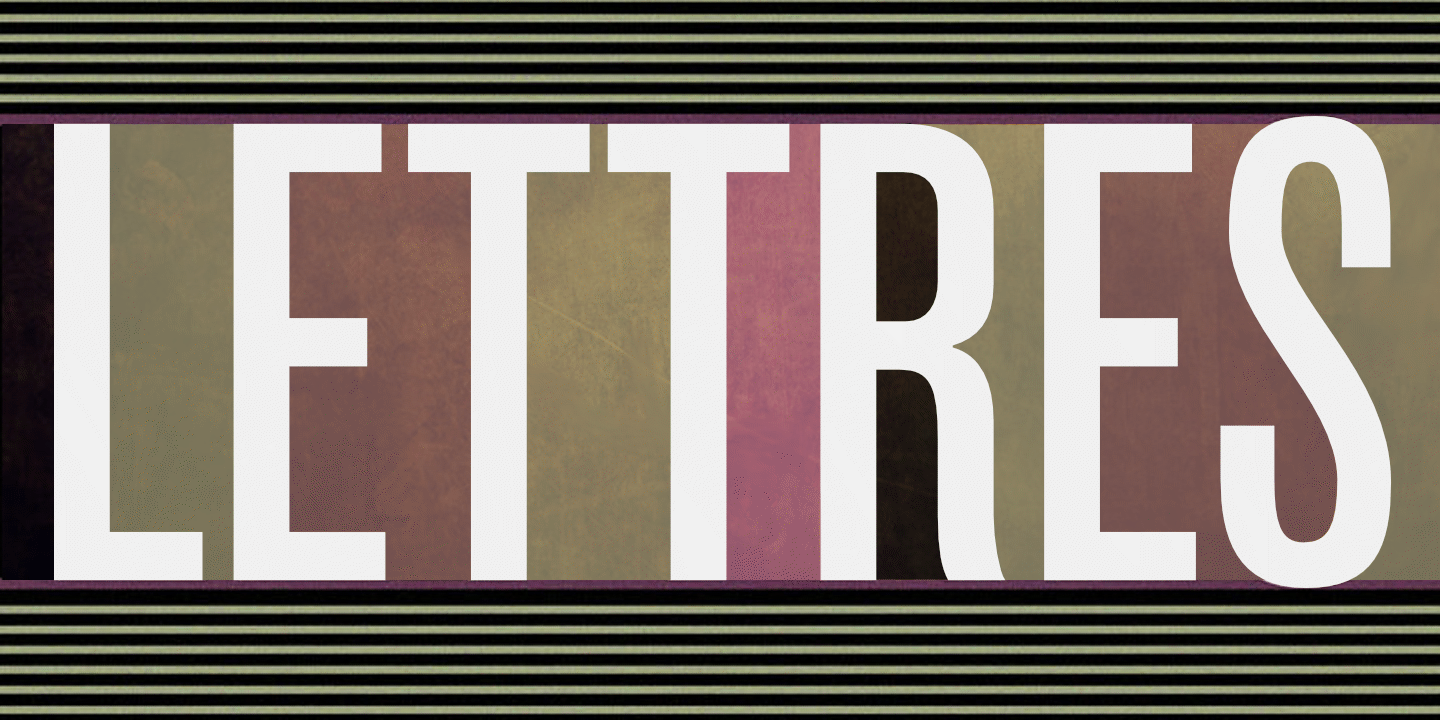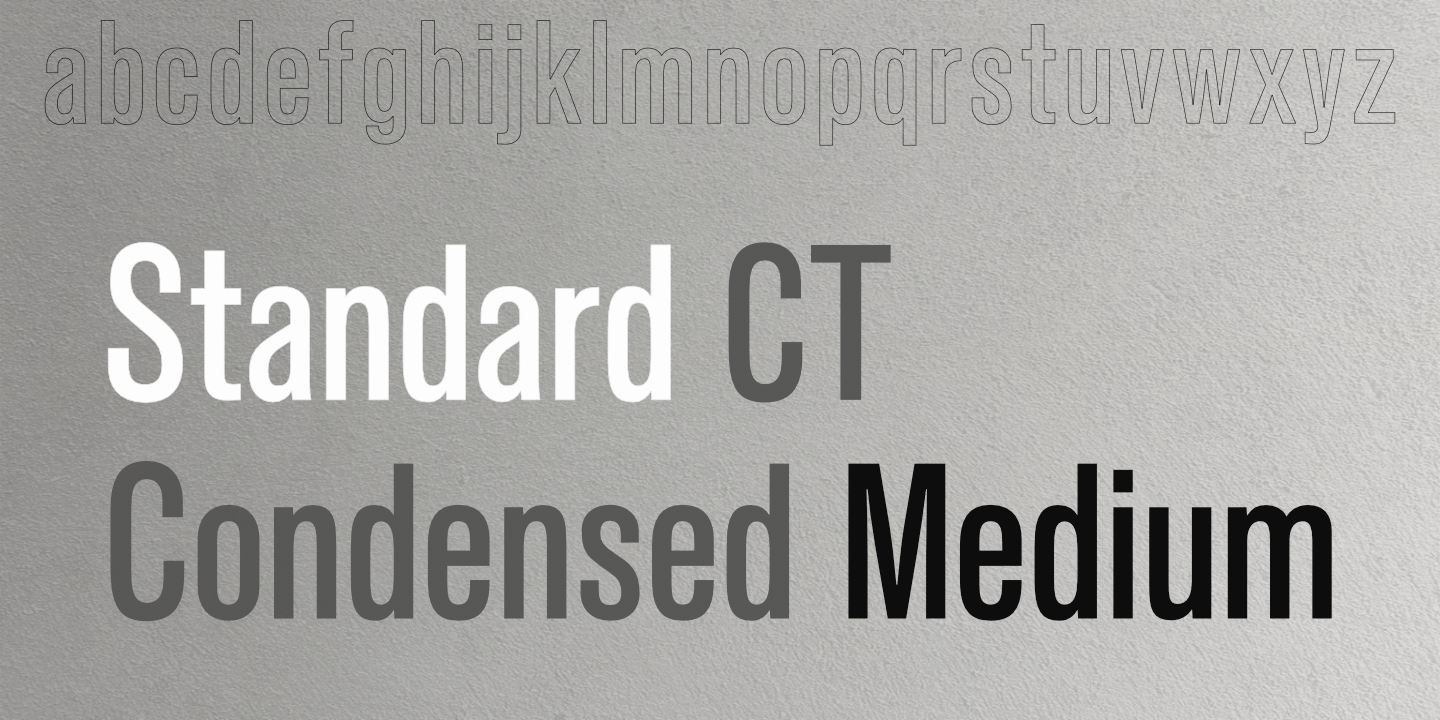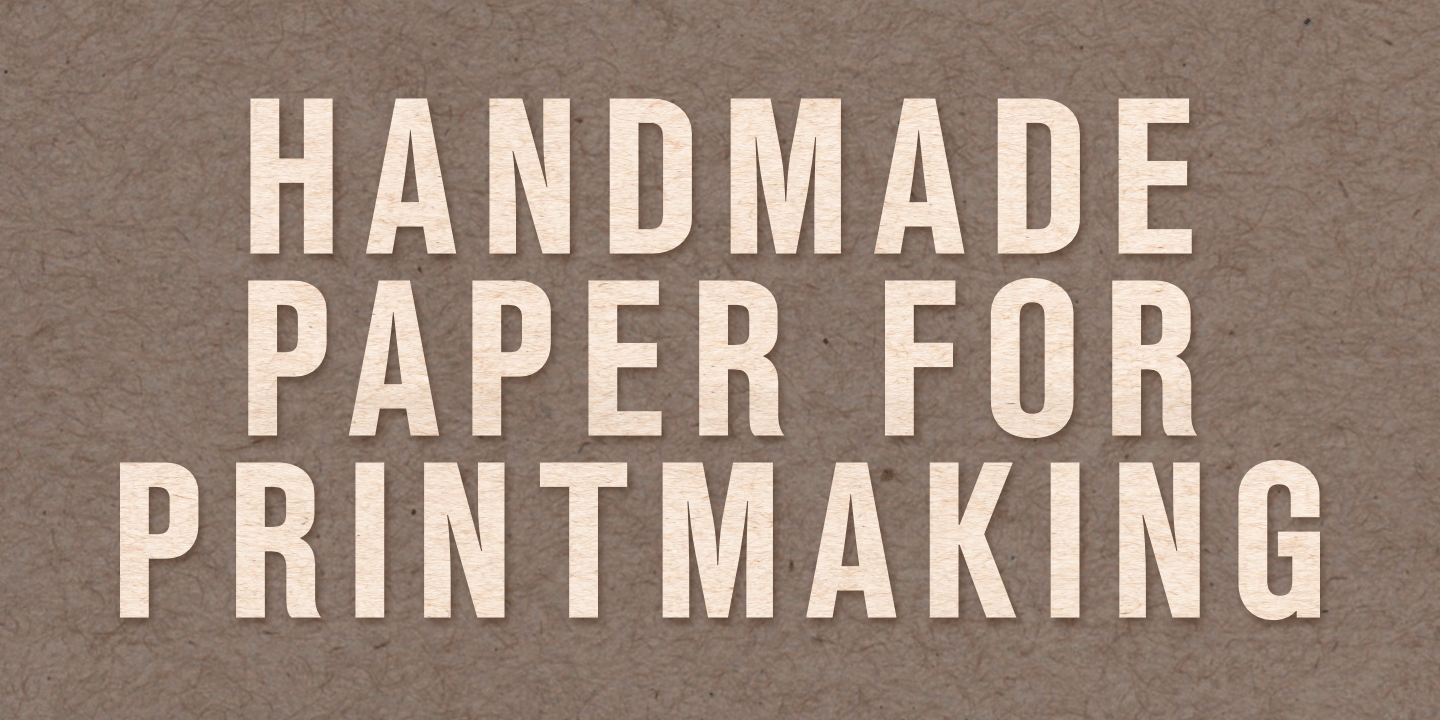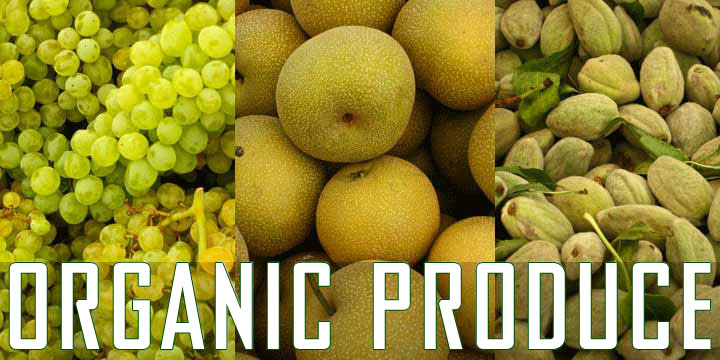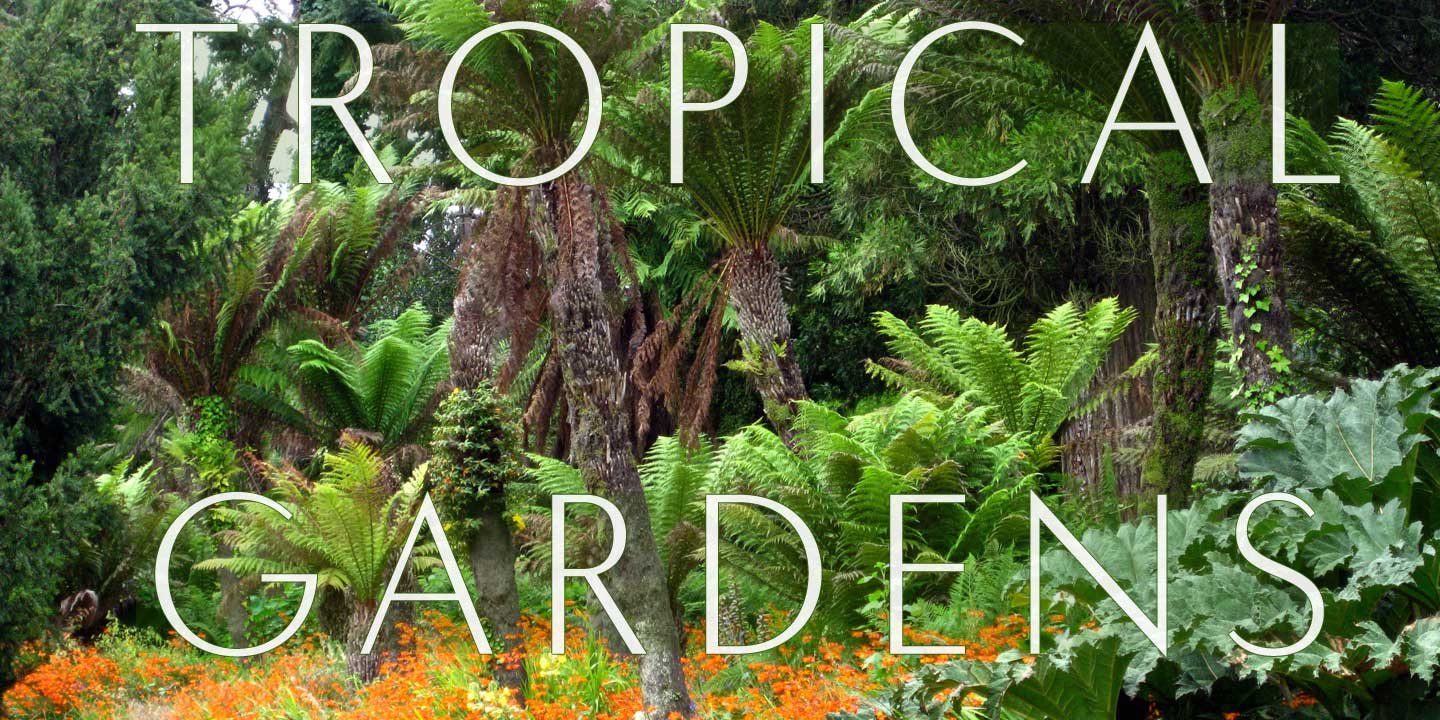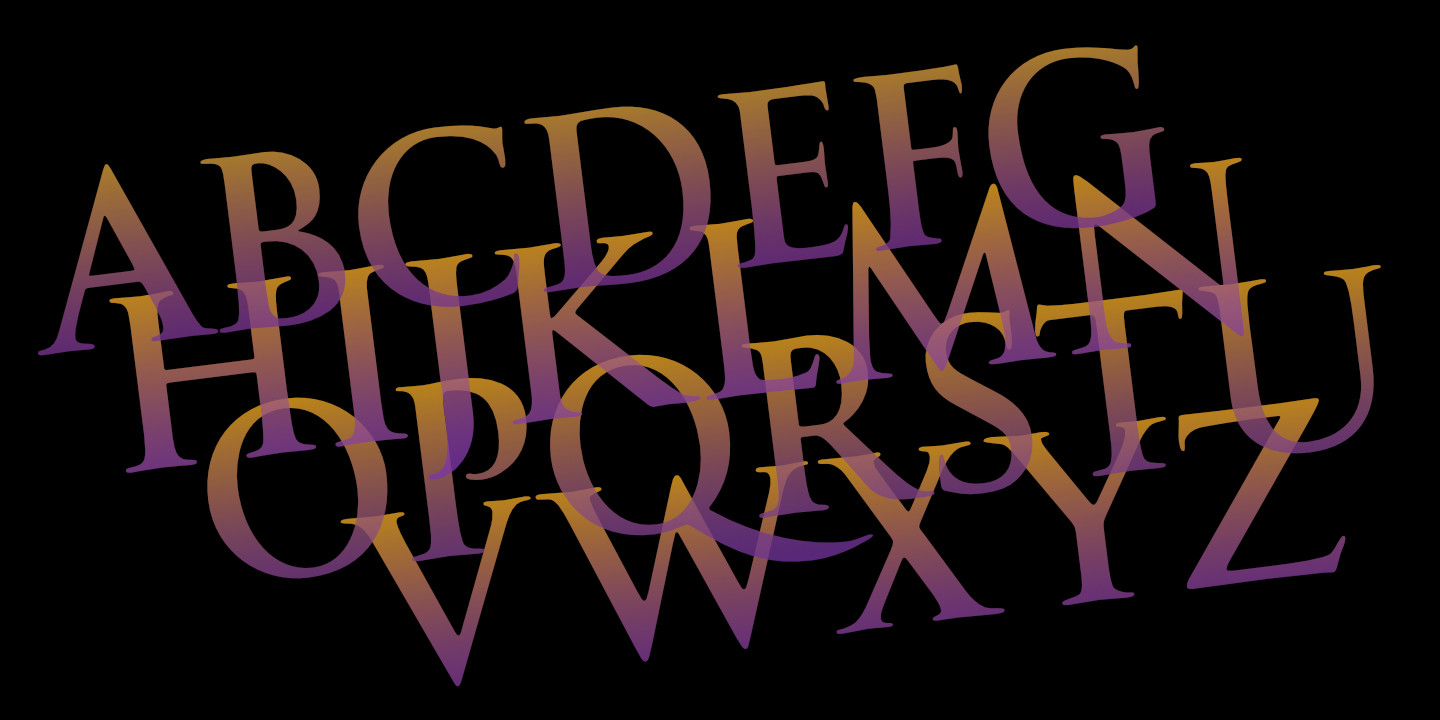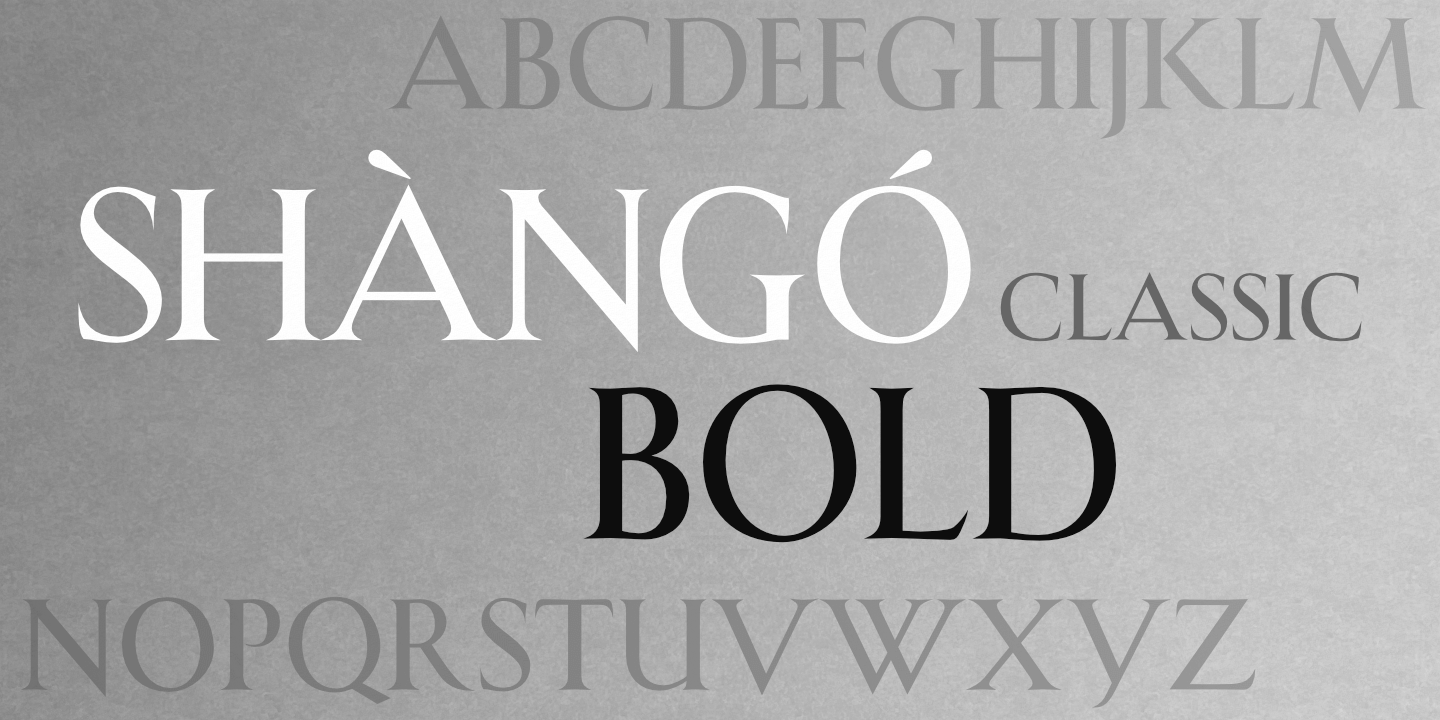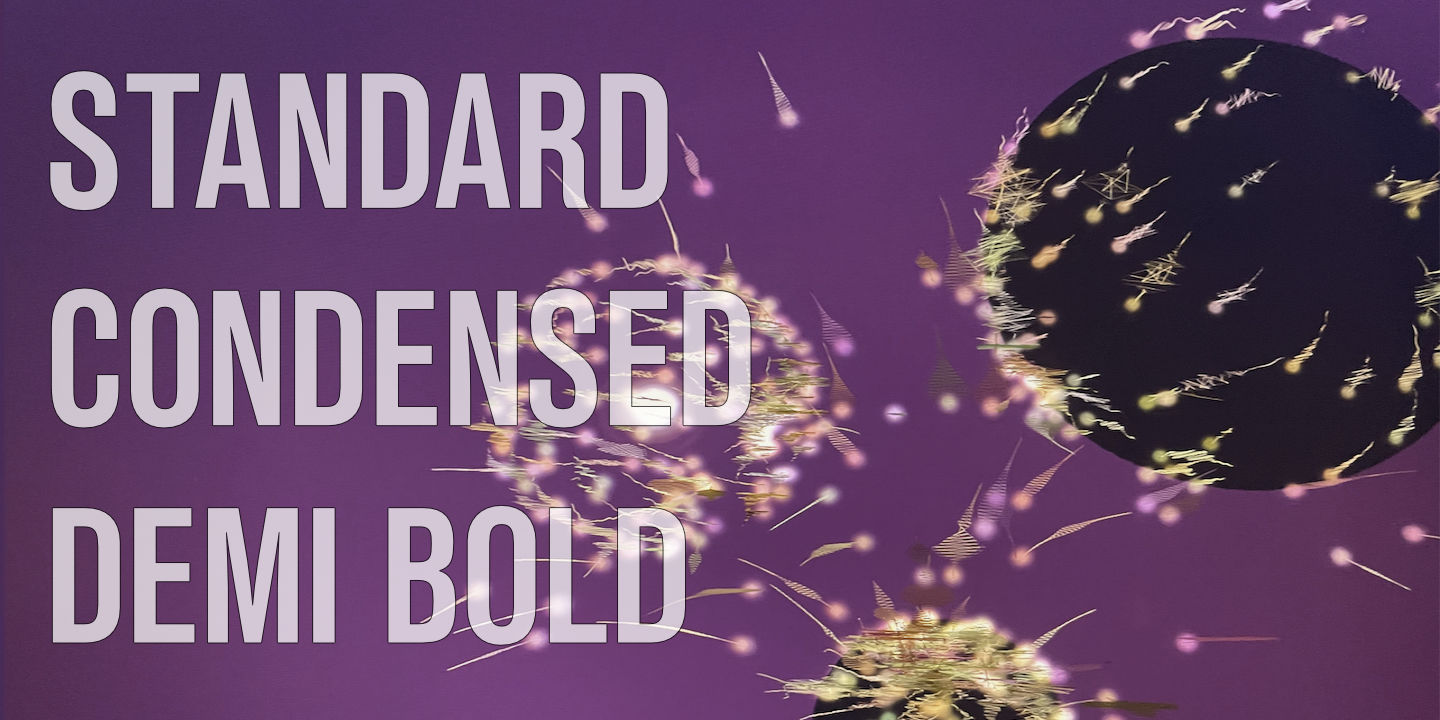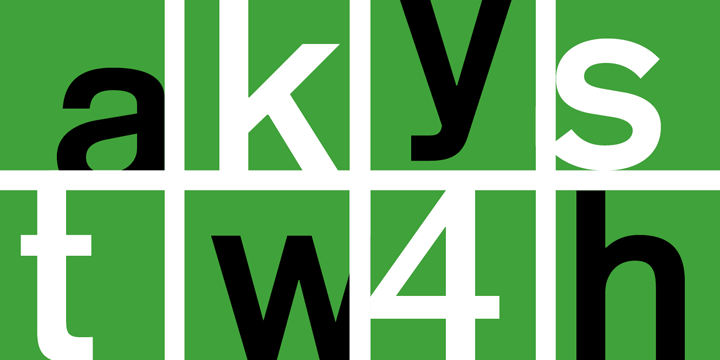
CastleType's Most Popular Fonts
Here is a selection of CastleType's six best selling and most favorited font families: Goudy Trajan Pro, Standard CT, Carisma, Agency Gothic, Shàngó, and Zamenhof. Click on any font poster for a larger view and for more information about that font.
Vous trouverez ici une sélection des polices CastleType les plus vendues et les plus populaires. Cliquez sur n’importe quelle affiche de police pour obtenir une vue plus grande et plus d’informations sur cette police.
Здесь вы найдете подборку самых продаваемых и популярных шрифтов CastleType. Нажмите на любой плакат со шрифтом, чтобы увеличить его и получить дополнительную информацию об этом шрифте.
Ĉi tie vi trovos elekton de la plej vendataj kaj popularaj tiparoj de CastleType. Alklaku iun ajn tiparo-afiŝon por akiri pli grandan vidon kaj pliajn informojn pri tiu tiparo.
Hier finden Sie eine Auswahl der meistverkauften und beliebtesten Schriftarten von CastleType. Klicken Sie auf ein beliebiges Schriftartenposter, um eine größere Ansicht und weitere Informationen zu dieser Schriftart zu erhalten.
Aqui você encontrará uma seleção das fontes mais vendidas e populares do CastleType. Clique em qualquer pôster de fonte para obter uma visão ampliada e mais informações sobre essa fonte.
Goudy Trajan Pro Regular
Goudy Trajan™ is based on drawings by American type designer F. W. Goudy of his rendition of the capital letters on the Trajan column. Supports Latin, Greek, and Cyrillic scripts.
Goudy Trajan Pro Medium
Goudy Trajan™ is based on drawings by American type designer F. W. Goudy of his rendition of the capital letters on the Trajan column. Supports Latin, Greek, and Cyrillic scripts.
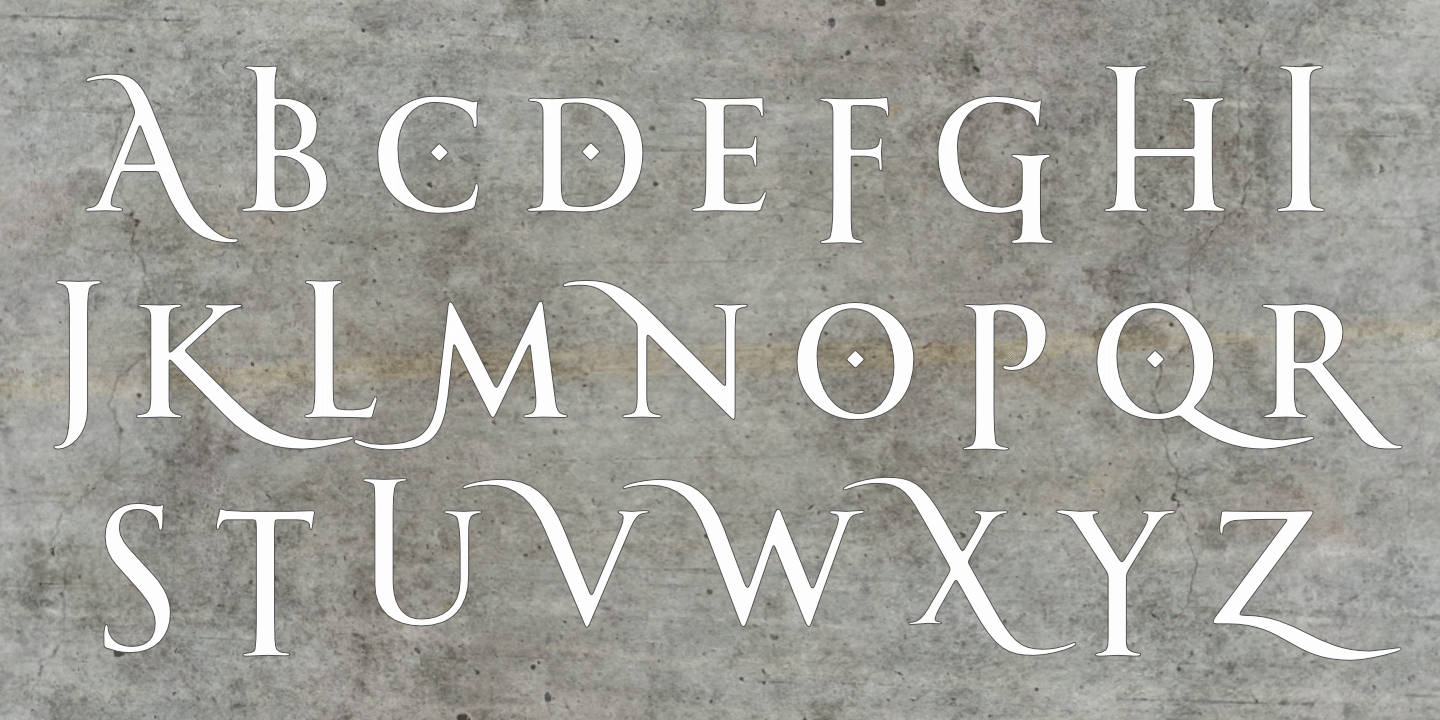
Goudy Trajan Pro Bold
Goudy Trajan™ is based on drawings by American type designer F. W. Goudy of his rendition of the capital letters on the Trajan column. Supports Latin, Greek, and Cyrillic scripts.
Carisma Light
Carisma™, a CastleType Original, is the perfect typeface for an understated, modern, sophisticated look. All weights of Carisma include small caps and oldstyle numerals. See also Carisma Gothic.
Carisma Regular
Carisma™, a CastleType Original, is the perfect typeface for an understated, modern, sophisticated look. All weights of Carisma include small caps and oldstyle numerals. See also Carisma Gothic.
Carisma Medium
Carisma™, a CastleType Original, is the perfect typeface for an understated, modern, sophisticated look. All weights of Carisma include small caps and oldstyle numerals. See also Carisma Gothic.
Carisma DemiBold
Carisma™, a CastleType Original, is the perfect typeface for an understated, modern, sophisticated look. All weights of Carisma include small caps and oldstyle numerals. See also Carisma Gothic.
Carisma Bold
Carisma™, a CastleType Original, is the perfect typeface for an understated, modern, sophisticated look. All weights of Carisma include small caps and oldstyle numerals. See also Carisma Gothic.
Carisma Inline
Carisma Inline is an uppercase-only addition to the family that supports most European languages, including those that use the Cyrillic alphabet; as well as Sanskrit transliteration and Yorùbá. See also Carisma and Carisma Gothic.
Carisma Gothic Light
With the release of the Gothic subfamily, Carisma is now an even more valuable addition to your typographic arsenal. Extensive language support. See also Carisma and Carisma Inline.
Carisma Gothic Regular
With the release of the Gothic subfamily, Carisma is now an even more valuable addition to your typographic arsenal. Extensive language support. See also Carisma and Carisma Inline.
Originally designed by American type designer Morris Fuller Benton in 1933, Agency Gothic is a wonderful, narrow, squarish art deco typeface.
Agency Gothic CT Open
Originally designed by American type designer Morris Fuller Benton in 1933, Agency Gothic is a wonderful, narrow, squarish art deco typeface.